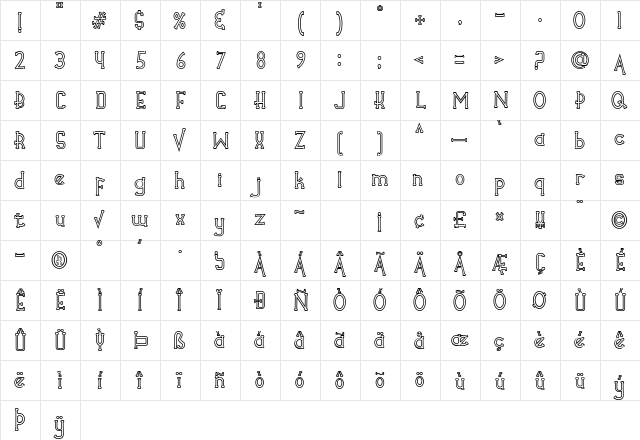
Veruzza Hollow Regular
Design Context for Veruzza Hollow Typeface
Veruzza Hollow takes a measured approach to typography — its balanced proportions and neutral character make it a reliable workhorse for both digital and print work.